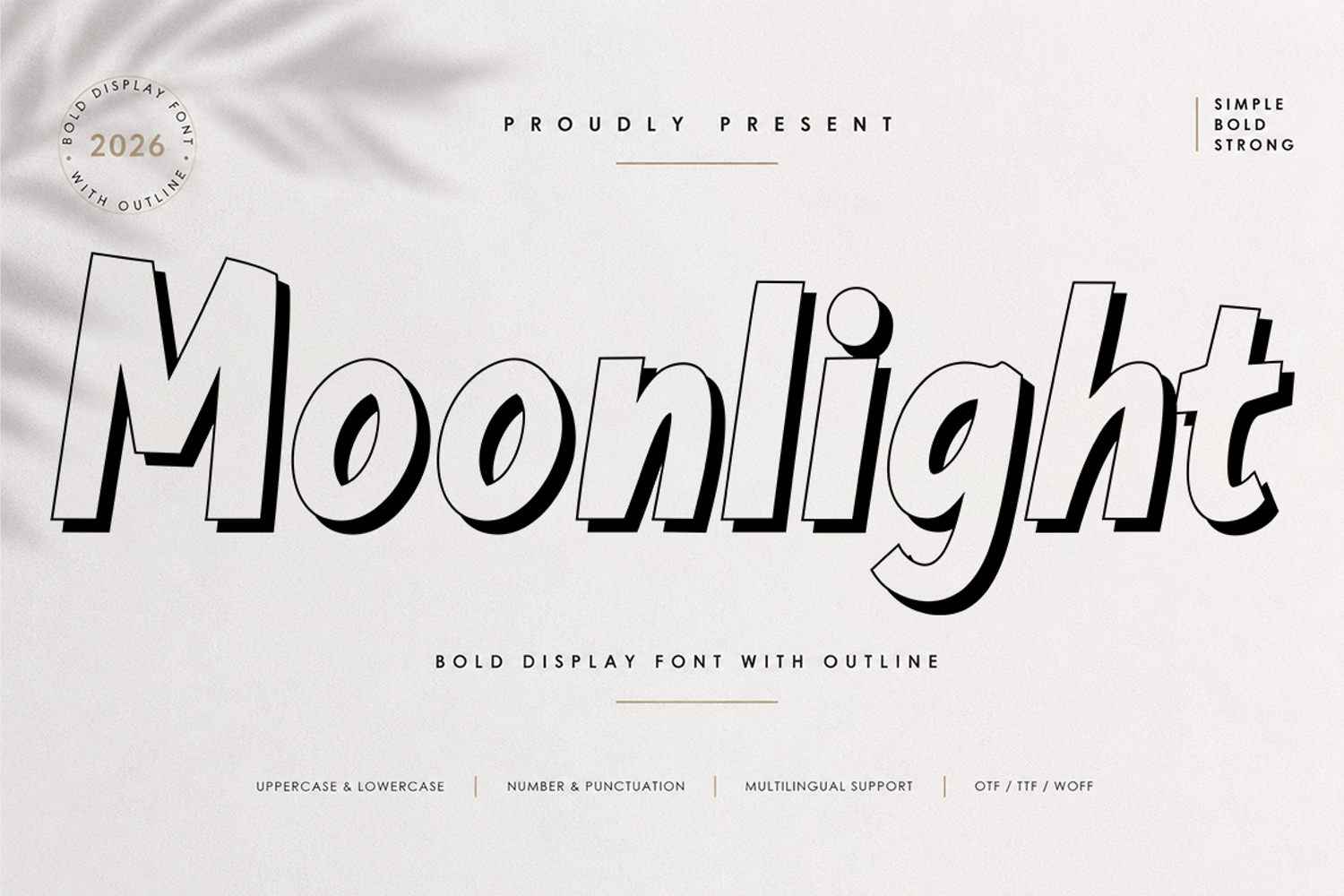
Moonlight is a bold display font with a strong, modern character and a distinctive outlined shadow effect. Its clean yet powerful letterforms are perfect for eye-catching headlines, logos, posters, apparel designs, sports branding, streetwear, and other creative projects.
The font includes uppercase and lowercase letters, numbers, punctuation, and multilingual support. Perfect for designers looking to create bold and impactful typography with a stylish dimensional appearance.